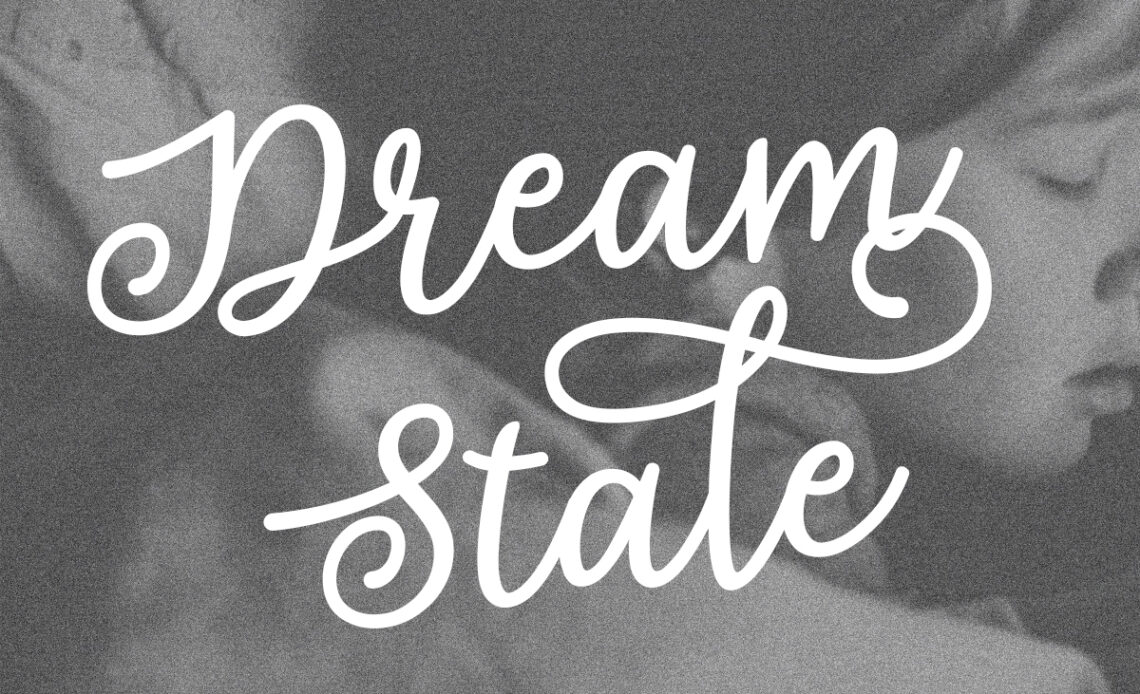
Journey into the realm of dreams, where imagination meets reality, and creativity knows no bounds. Introducing Dream State Font, a captivating script font that will cast a spell on your designs. Prepare to be enthralled by its enchanting curves, delicate strokes, and an ethereal charm that will leave you breathless.
Crafted with utmost precision and artistry, Dream State Font captures the essence of nostalgia and modernity in perfect harmony. Its graceful lines flow like a gentle river, evoking a sense of longing and wonder. Whether you're creating vintage-inspired logos, heartfelt invitations, or whimsical branding materials, Dream State Font will add a touch of magic to every project.
Immerse yourself in the world of Dream State Font and let your creativity soar. This versatile font is a dream come true for designers seeking to create impactful visuals. With its ability to effortlessly blend with various styles and themes, Dream State Font will seamlessly elevate your projects to new heights.
Transport your audience to a realm of enchantment with Dream State Font. Its intricate details and enchanting aura will captivate their attention, leaving them spellbound. Experience the power of typography as you watch your designs come alive with the ethereal beauty of Dream State Font.
Step into the dreamlike world of Dream State Font and unlock a world of endless possibilities. Let your imagination run wild as you craft designs that resonate with your audience on a deeper level. Embrace the allure of this captivating font and witness the transformation of your creative visions into breathtaking realities.